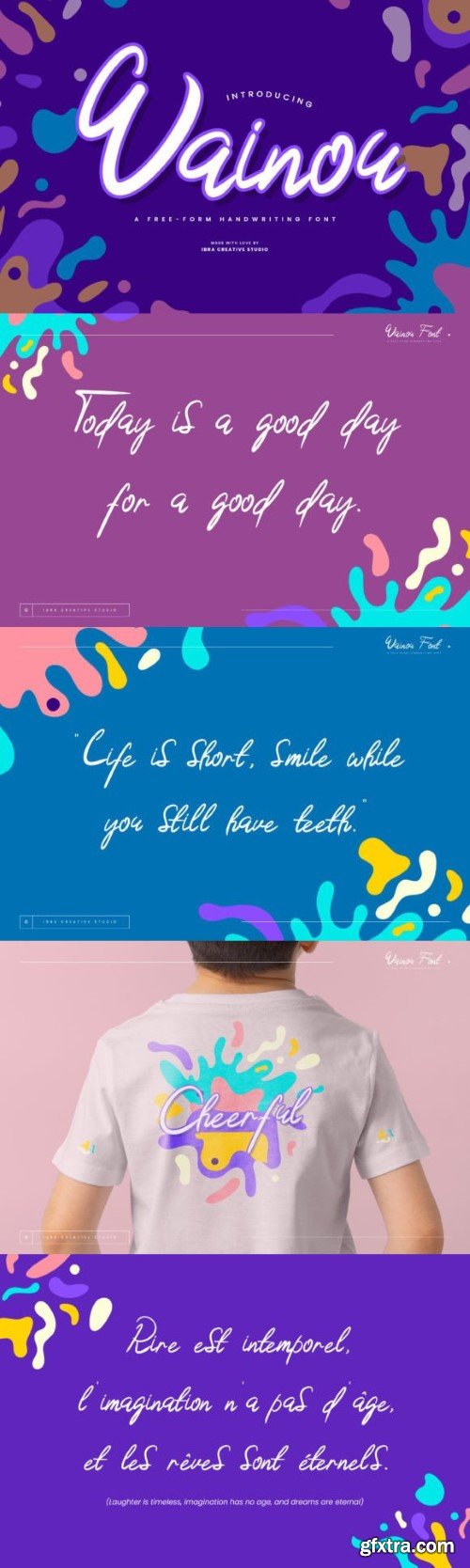
万努字体
Wainou, a free-form handwriting font, gracefully dances on the digital canvas, embodying the essence of unbridled self-expression. Its fluid strokes and whimsical curves breathe life into each character, fostering a sense of organic spontaneity that captures the nuances of individual penmanship. Wainou transcends the rigidity of conventional typefaces, inviting a playful journey through the artistry of personal writing styles.